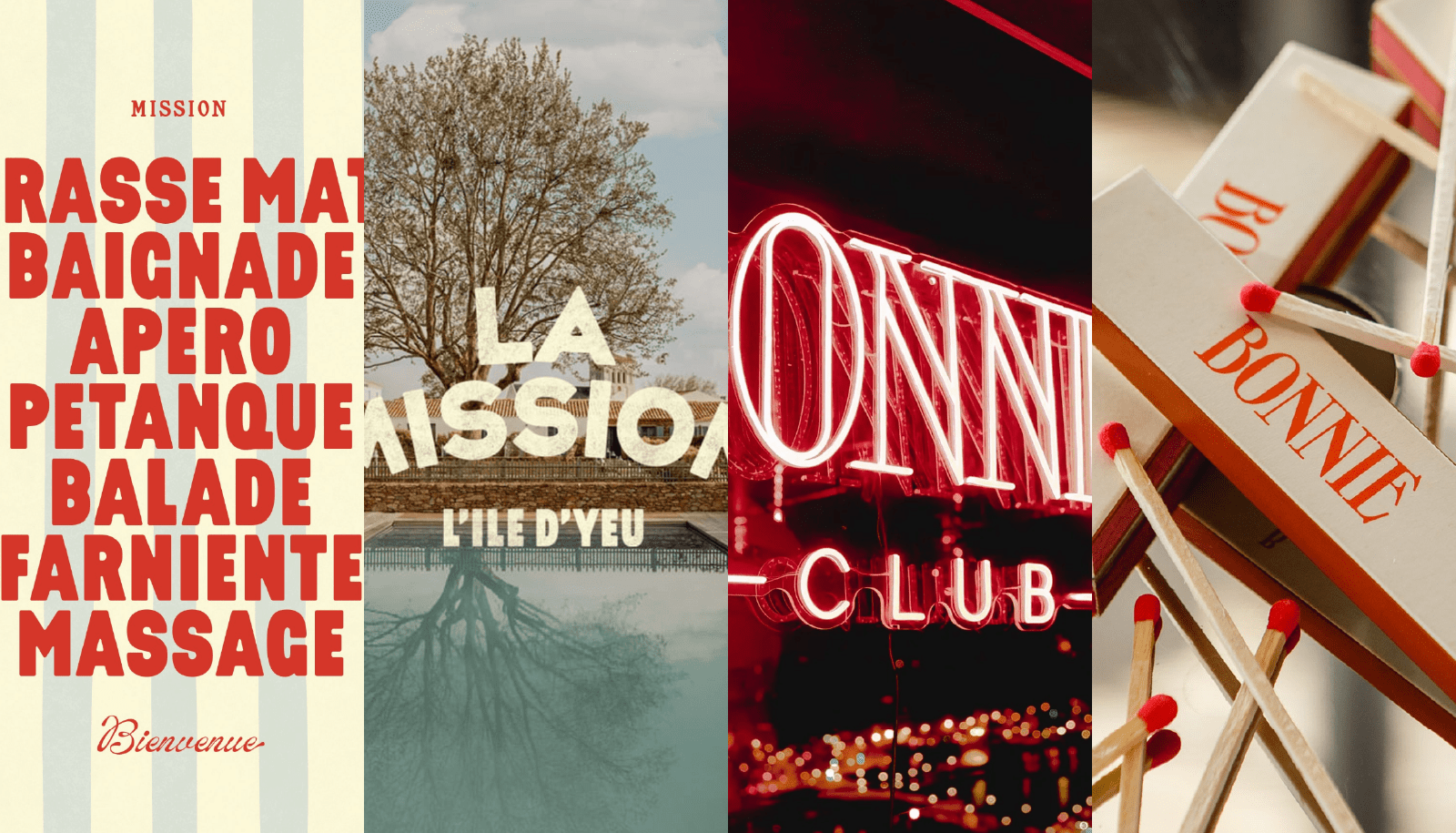
Your brand has a type. How typography shapes our brands personalities.
This talk dives into the powerful role typography plays in shaping brand personality. Using real case studies from our work, we’ll demonstrate how type can set the mood, convey values, and, in some cases, carry an entire brand on its own.